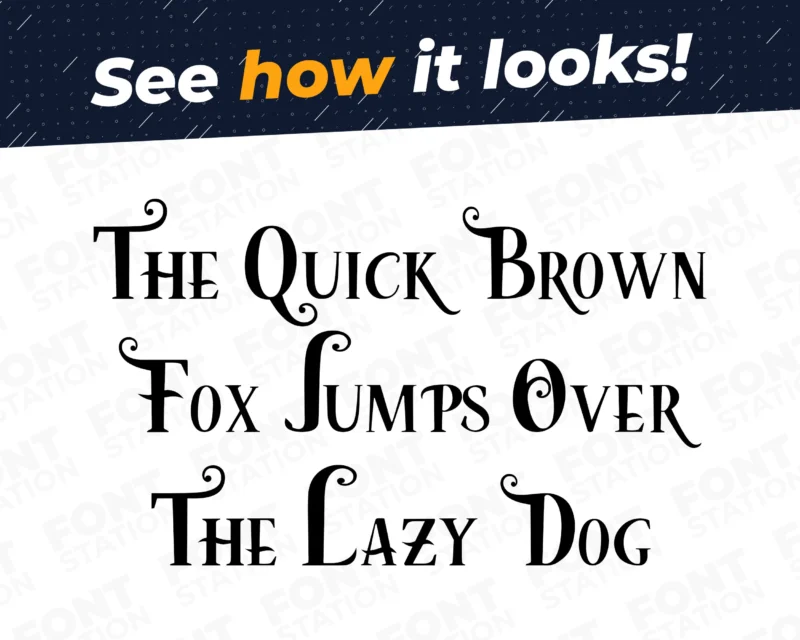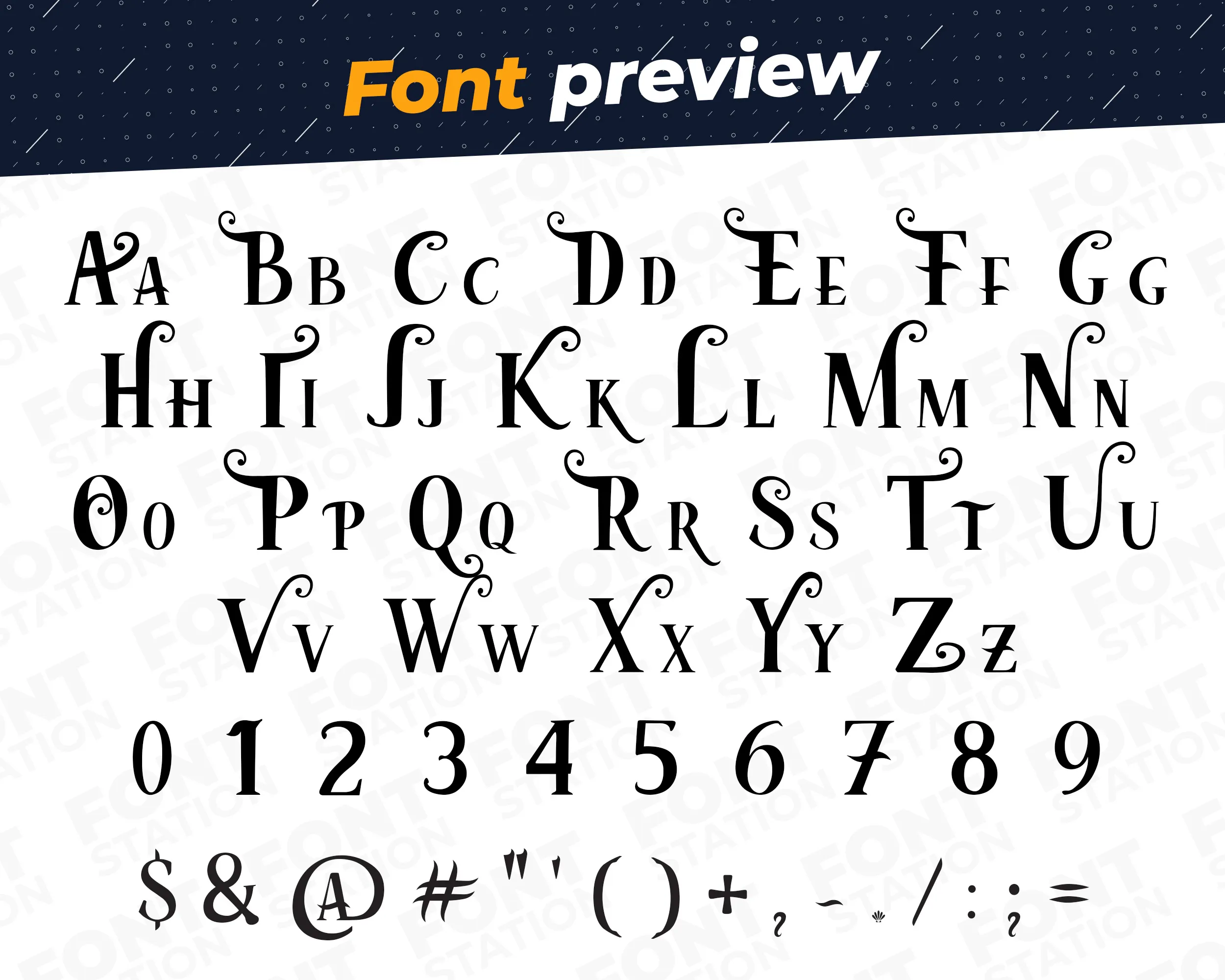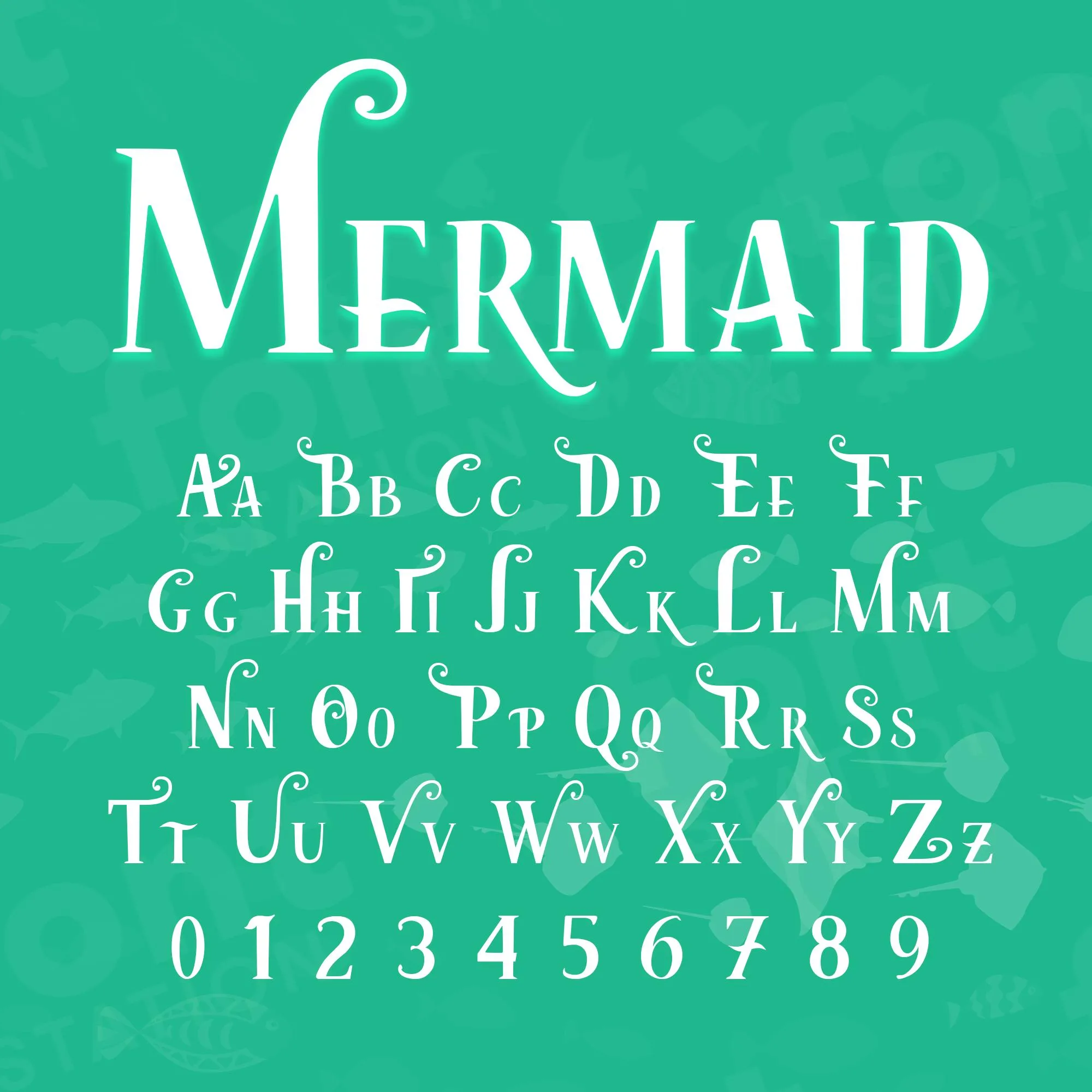
Our Mermaid Princess typeface, inspired from The Little Mermaid font
Grab your computer, tablet or other device and start creating right now with our The Little Mermaid font letters! Our Mermaid Princess typography is inspired from The Little Mermaid movie font, making it ideal for various digital creations (logo, word…), sublimation, cake toppers, stickers, event decorations, and more.
Image showing all characters available in the The Little Mermaid font created by FontMaze.
The Little Mermaid Font